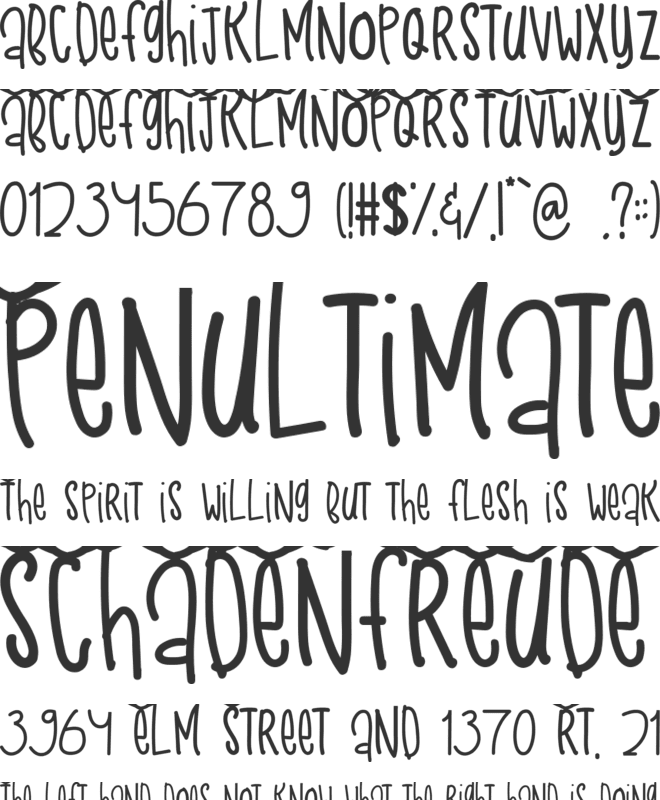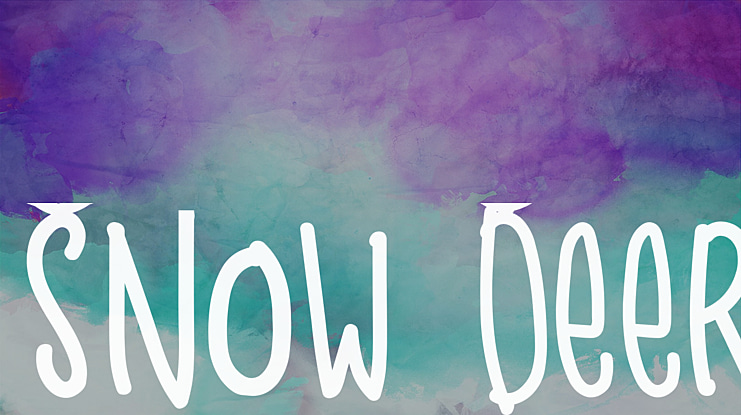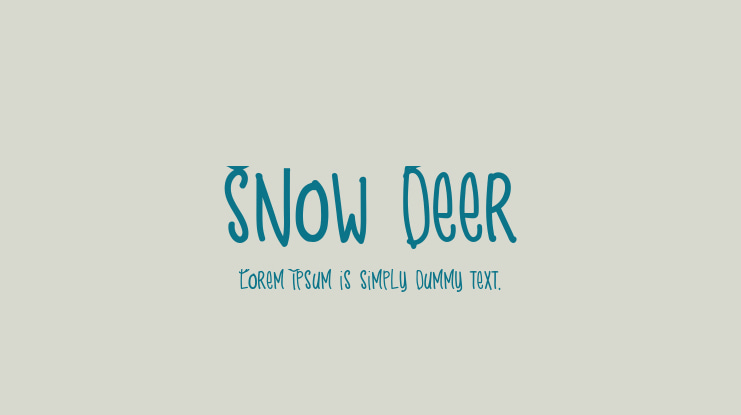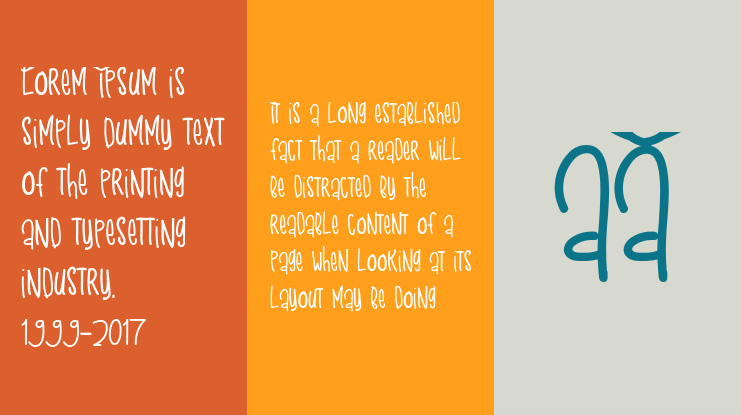
Snow Deer Font
This enchanting font will turn any creative idea into a true standout. Perfect fit for all of your logos, branding, social media, etc. Get creative with its unique playfulness, and use it to brighten up any crafting project! Please note that this demo font is for personal use only.!! If you want to use this font for commercial use, you need to purchase a commercial license here: https://www.creativefabrica.com/product/snow-deer/ref/161900/